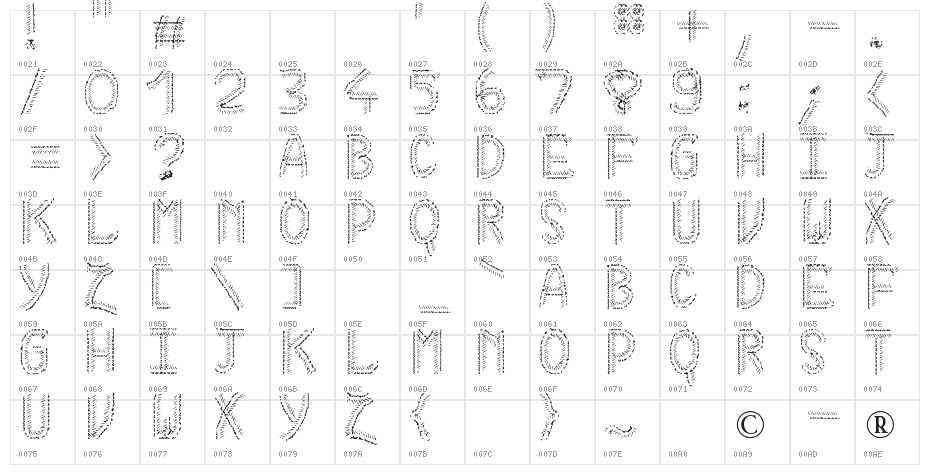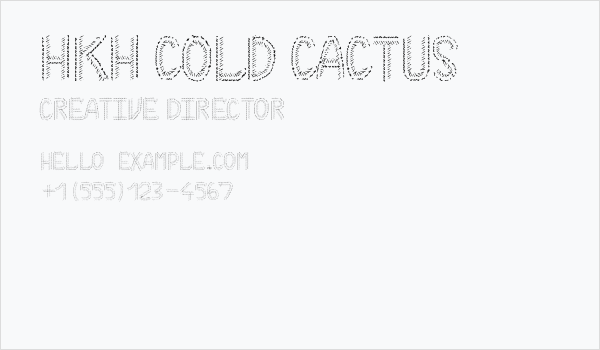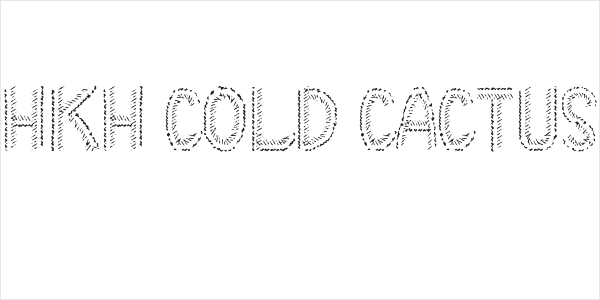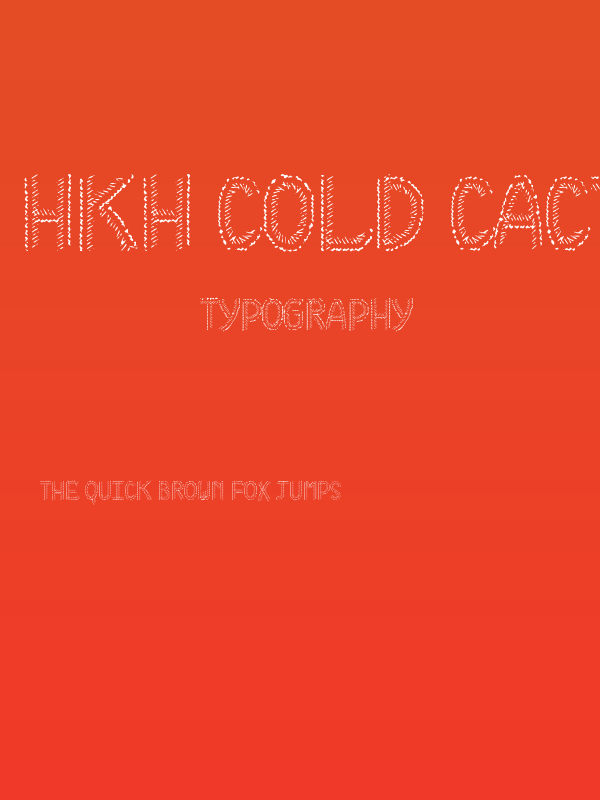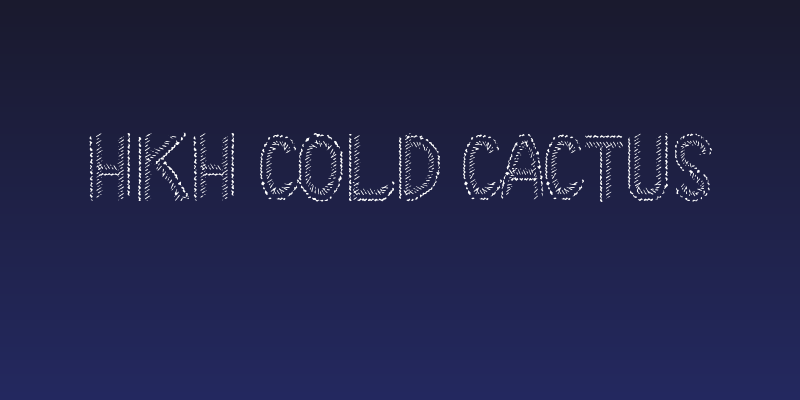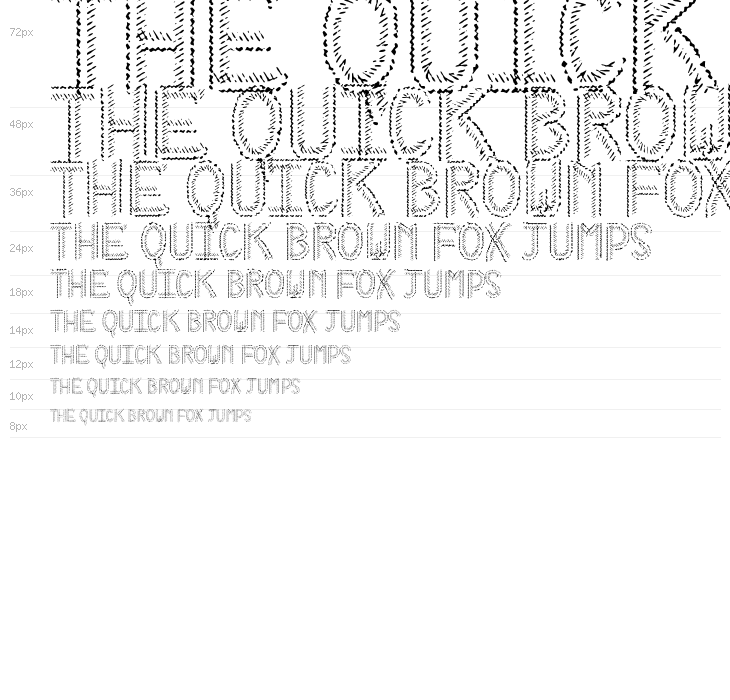
HKH Cold Cactus Font
HKH Cold Cactus Description
This font features a unique, textured design that mimics the appearance of cactus spines or needlework. Each character is composed of a series of short, diagonal lines that create a rough, organic texture. The uppercase and lowercase letters maintain a consistent style, with a slightly condensed form that gives the font a compact appearance. The numerals and special characters follow the same textured pattern, ensuring a cohesive look across all glyphs. This font's distinctive style makes it ideal for projects that require a rustic or handcrafted feel, while still maintaining legibility.
| Use Case | Logos, Posters, Creative projects |
| Proposed Projects | Ideal for branding, posters, and creative projects that require a rustic or handcrafted aesthetic. |